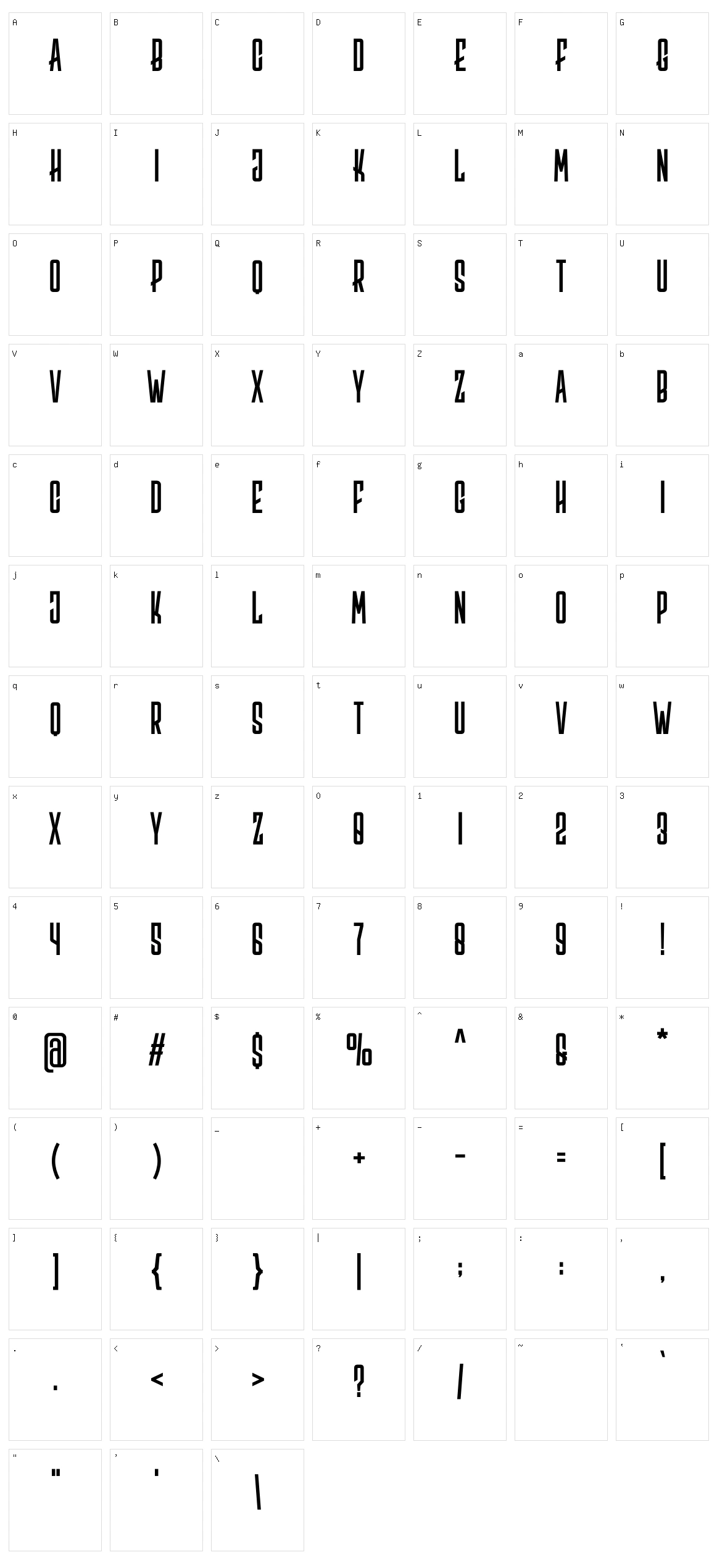
The free font Thomson is carefully designed by Linecreative, showcasing a thoughtful balance of creativity and usability and falls under the Retro font style. When you download the ZIP file, it contains only 8.09 KB of font files, making it lightweight and quick to download. Please review the license details below to understand permitted usage and distribution rights. If license information is not available, we recommend using this font for personal projects only or contacting the author directly for commercial usage permissions.